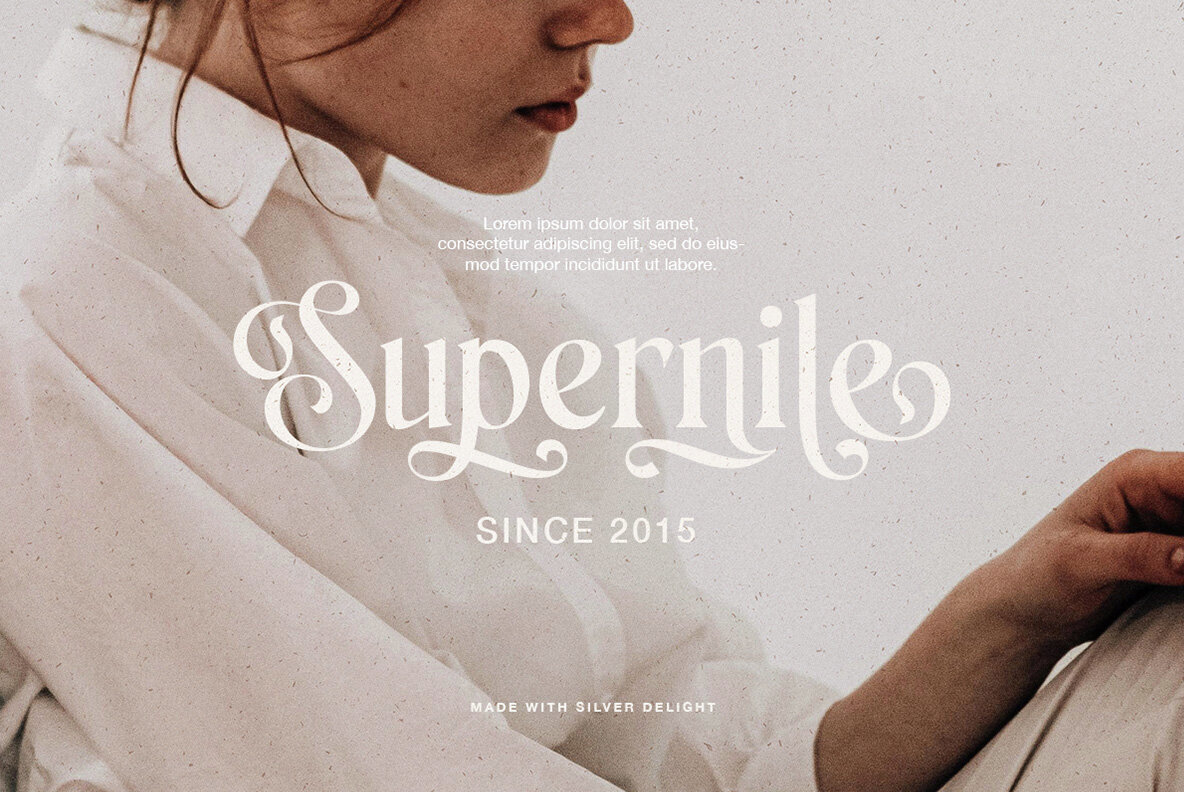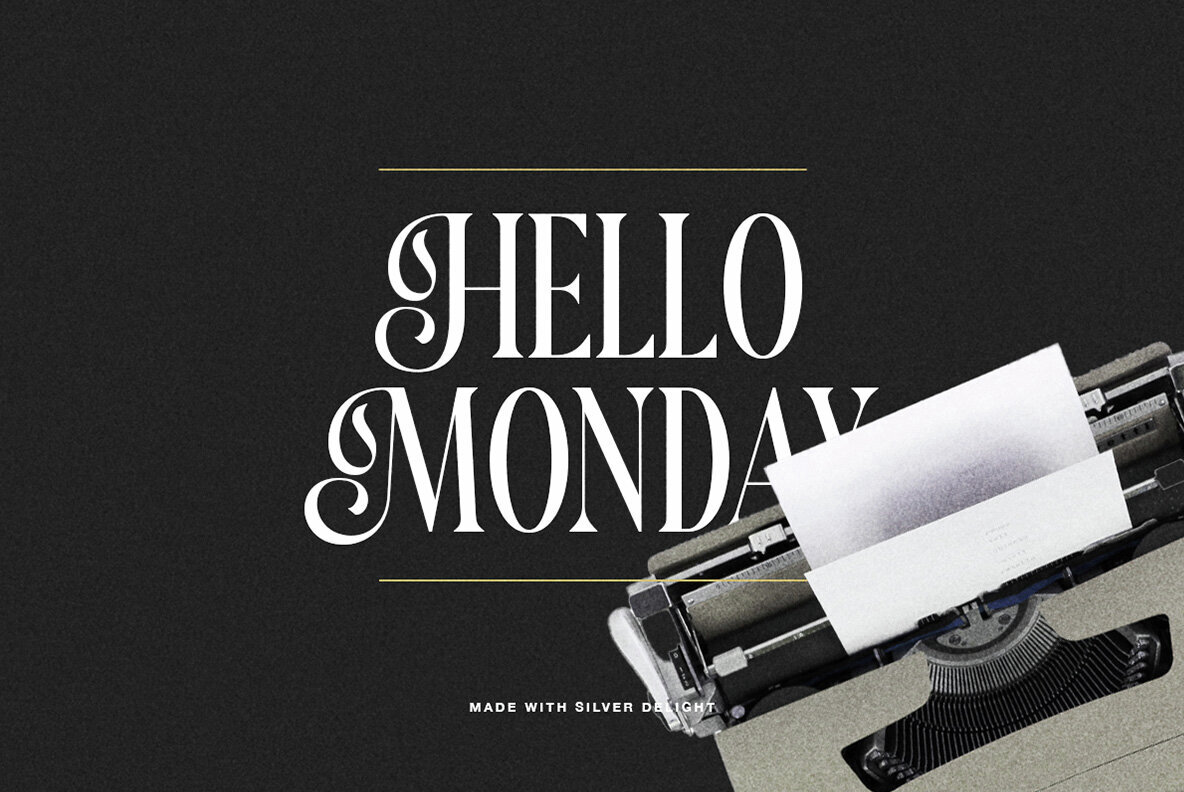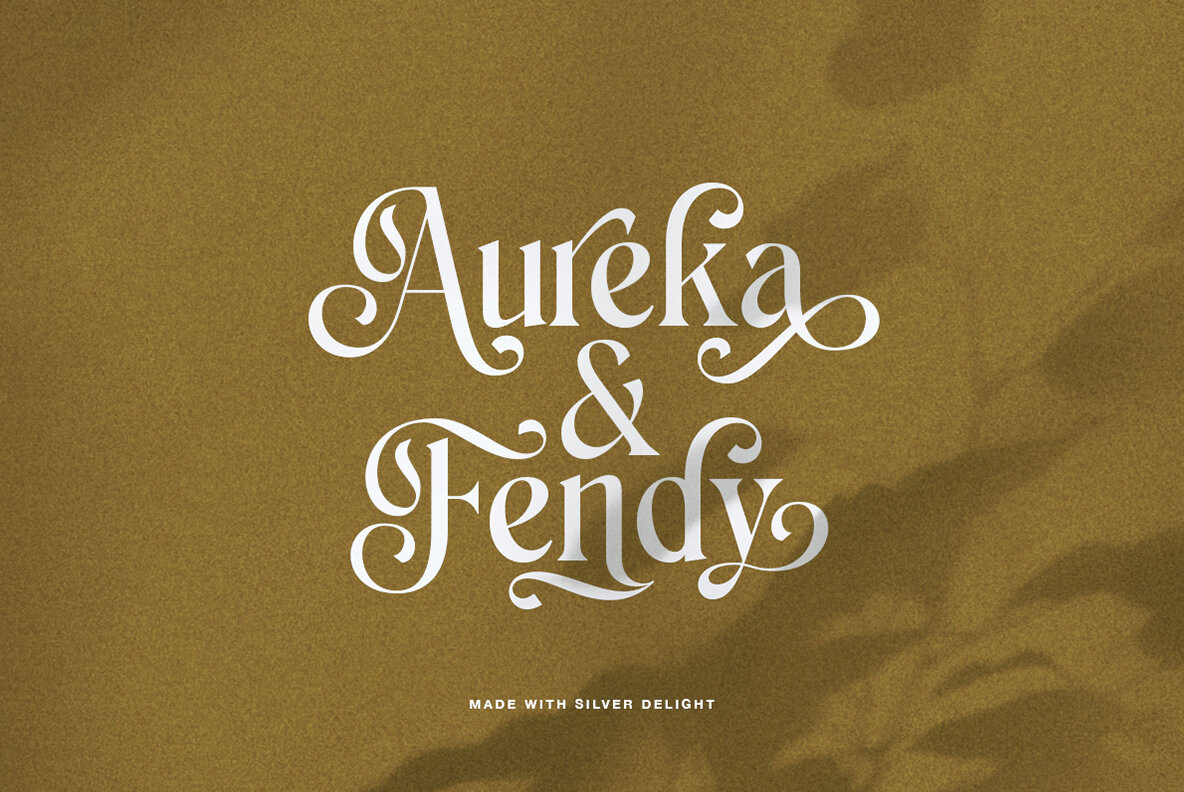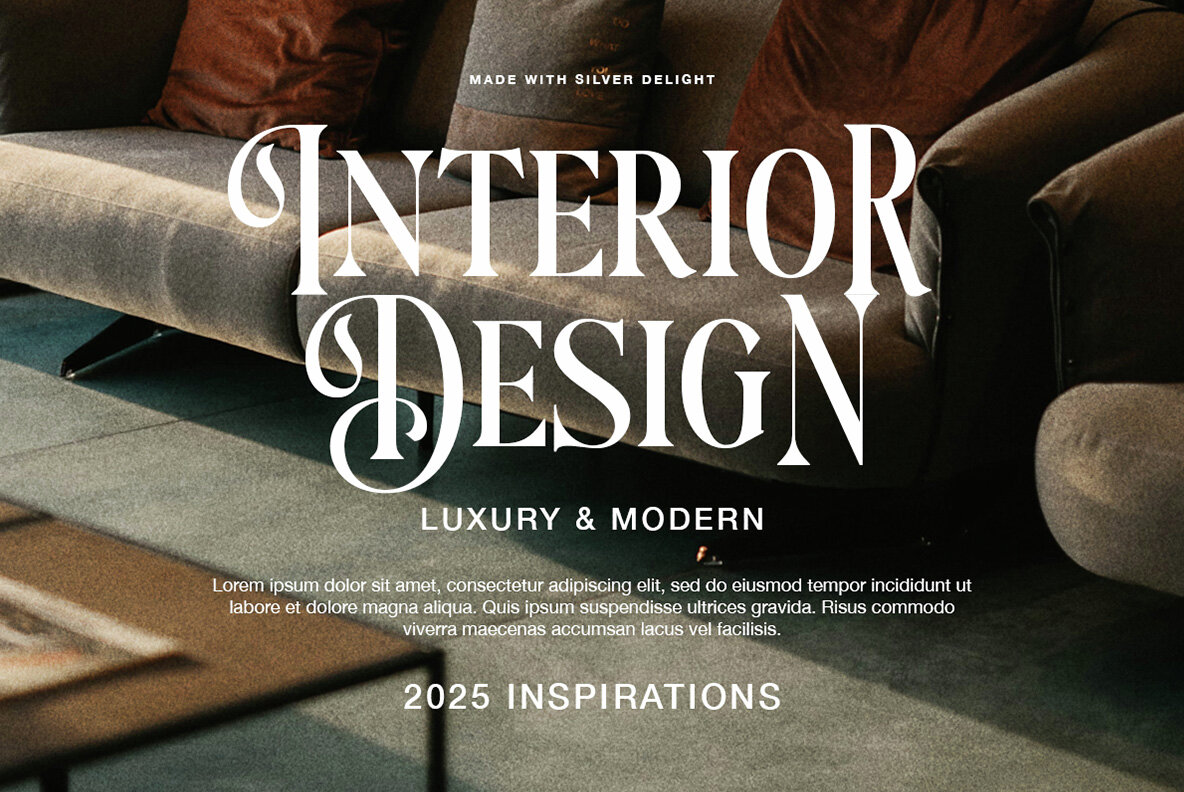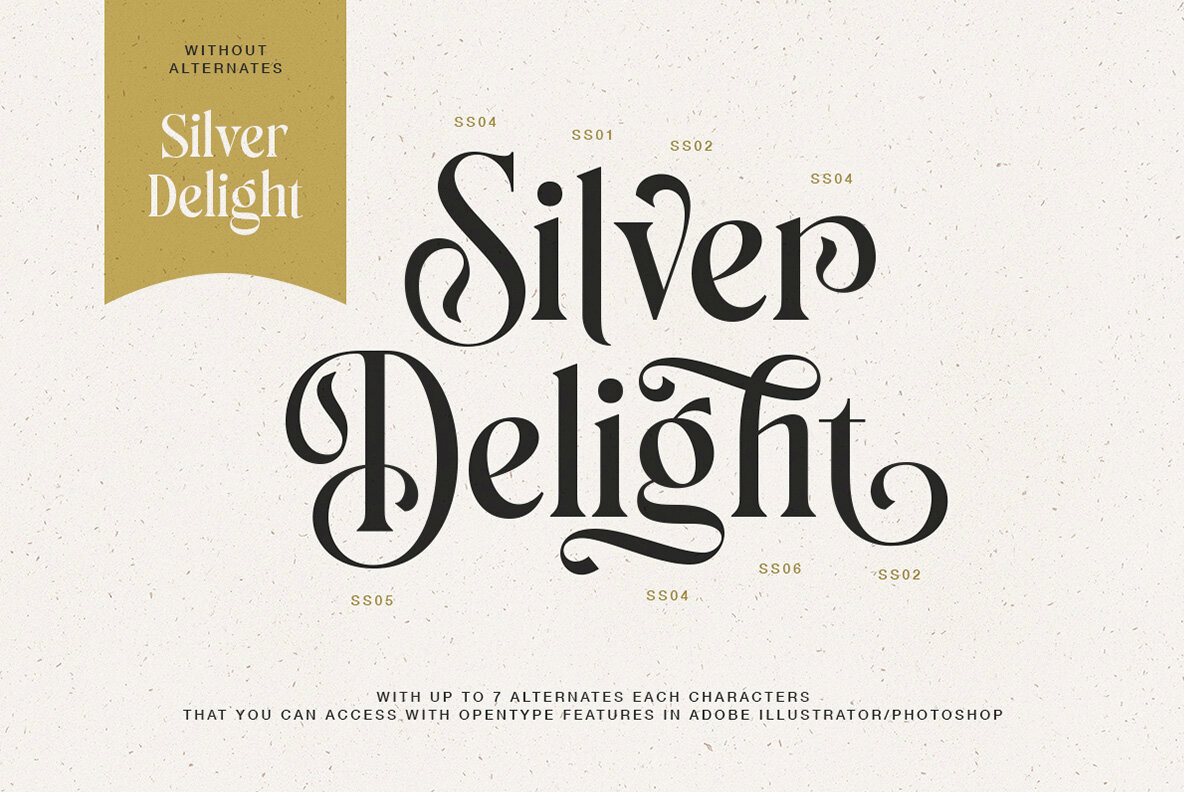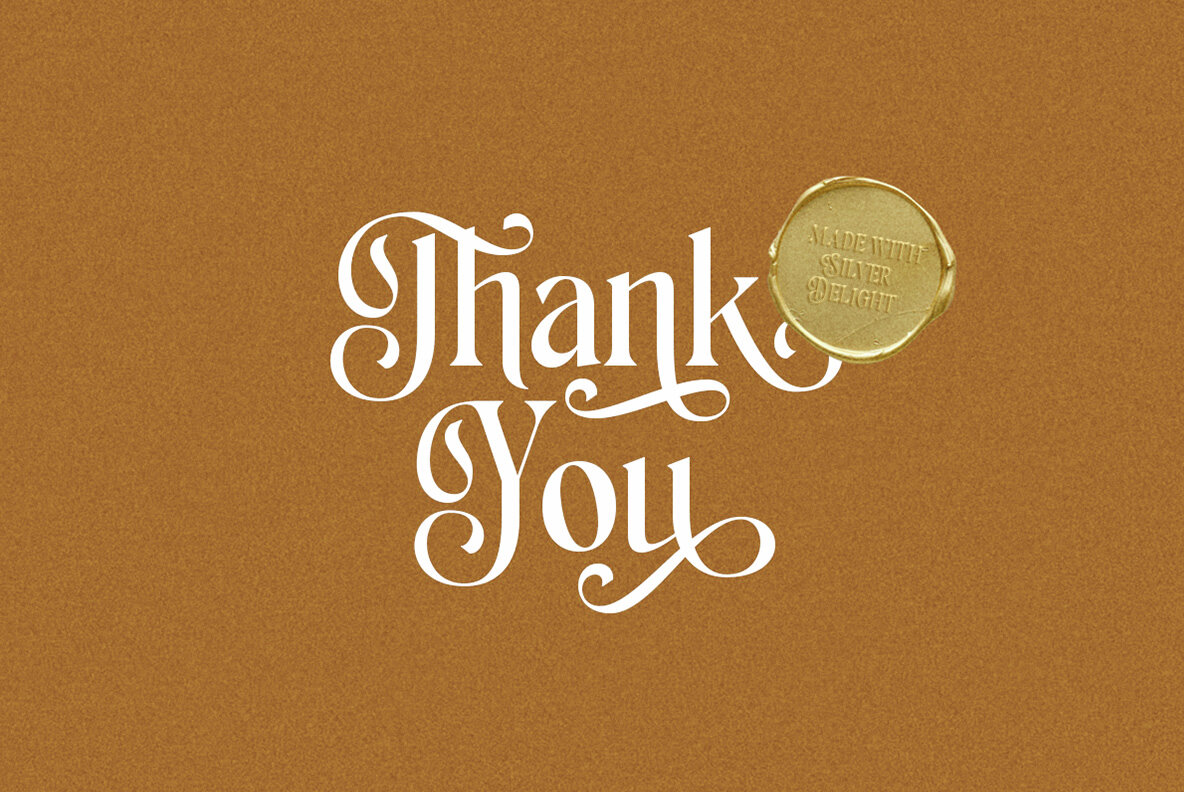
Silver Delight Font
Silver Delight Regular
Silver Delight is a modern serif font offering a variety of stylish alternates with unique swashes to enhance your typography. The elegant blend of clean serif lines and decorative swirls makes this typeface versatile for numerous artistic applications. Ideal for logos, invitations, labels, magazines, and greeting or wedding cards, Silver Delight adds a sophisticated touch to any project, including fashion, makeup, packaging, and stationery.
Key features of Silver Delight include uppercase and lowercase letters, numbers, punctuation, alternates, ligatures, and multilingual support. Additionally, this font is PUA encoded for ease of use. To fully utilize its OpenType features and glyph variations, we recommend using software like Adobe creative tools or Corel Draw for the best design experience.